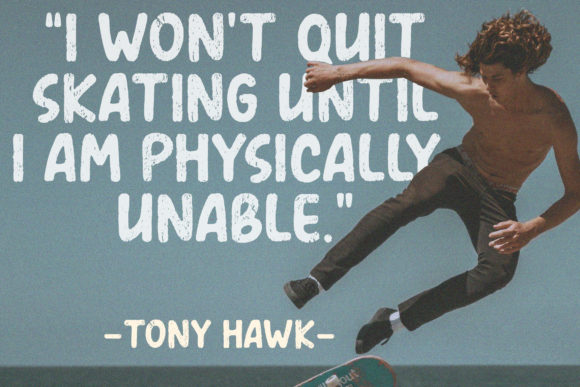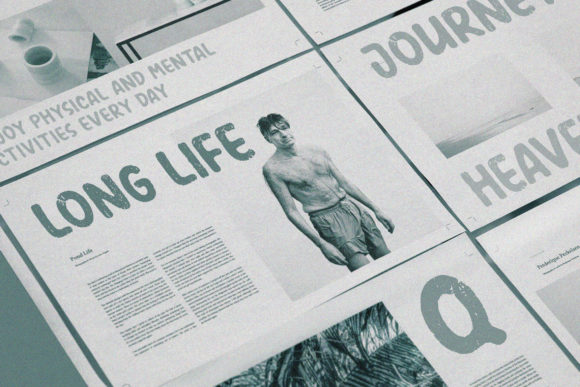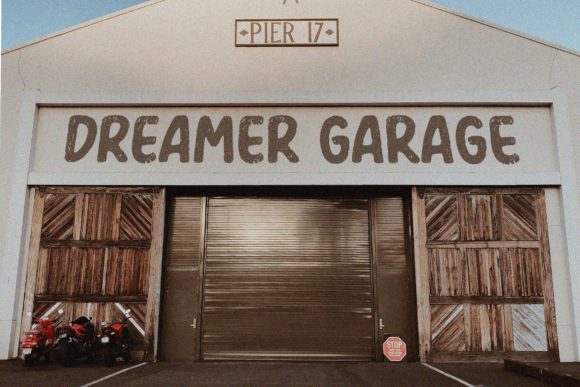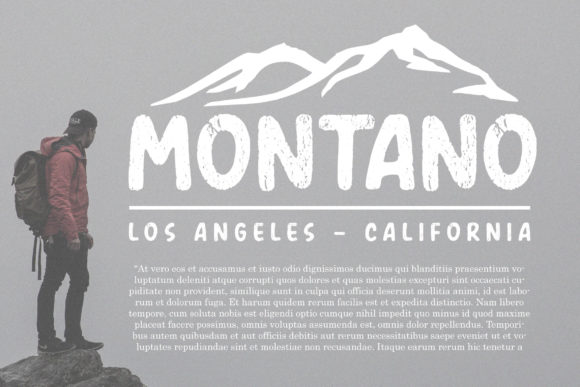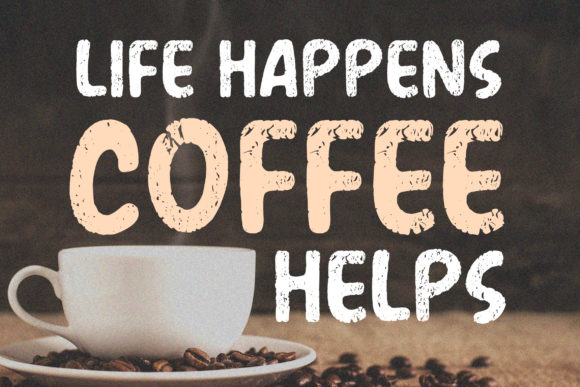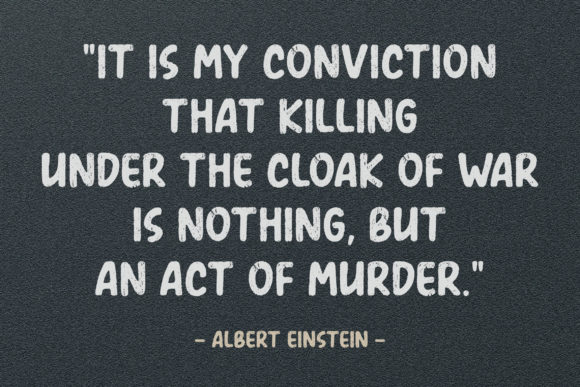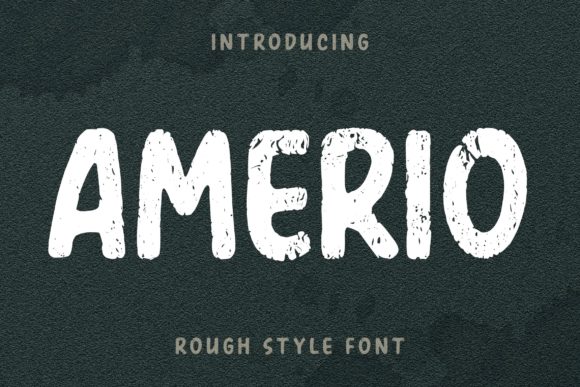
Introducing Amerio Font: A Stunning Grunge Style for Your Creative Projects
Are you a designer or crafter looking for a unique and authentic font to add a touch of elegance to your creative projects? Look no further than Amerio Font, a stunning grunge style font that’s both sophisticated and genuine. In this article, we’ll explore the features and benefits of Amerio Font, and why it’s a must-have for anyone looking to elevate their design game.
Amerio Features a Stunning Grunge Style
Amerio Font boasts a beautiful grunge style that’s perfect for designers and crafters who want to add a touch of rugged elegance to their work. The font’s distressed texture and rough edges give it a unique, handmade feel that’s both authentic and eye-catching. Whether you’re working on a branding project, a craft tutorial, or a personal blog, Amerio Font is sure to make your text stand out.
Elegant and Authentic
One of the standout features of Amerio Font is its ability to balance elegance and authenticity. The font’s grunge style is sophisticated and refined, making it perfect for high-end branding and design projects. At the same time, its rough, distressed texture gives it a genuine, down-to-earth feel that’s perfect for crafters and makers. Whether you’re looking to create a luxurious brand identity or a handmade craft tutorial, Amerio Font has got you covered.
Key Features of Amerio Font
- Grunge style: Amerio Font features a stunning grunge style that’s both elegant and authentic.
- Distressed texture: The font’s distressed texture gives it a unique, handmade feel that’s perfect for crafters and makers.
- Rough edges: The font’s rough edges add to its rugged, grunge style.
- Elegant and refined: Despite its grunge style, Amerio Font is surprisingly elegant and refined, making it perfect for high-end branding and design projects.
- Authentic and genuine: The font’s distressed texture and rough edges give it a genuine, down-to-earth feel that’s perfect for crafters and makers.
How to Use Amerio Font in Your Creative Projects
Amerio Font is a versatile font that can be used in a variety of creative projects, including:
- Branding and logo design: Amerio Font is perfect for creating unique and eye-catching brand identities.
- Craft tutorials and patterns: The font’s distressed texture and rough edges make it perfect for craft tutorials and patterns.
- Blogging and social media: Amerio Font is a great choice for bloggers and social media enthusiasts who want to add a touch of elegance to their text.
- Graphic design and printmaking: The font’s grunge style and distressed texture make it perfect for graphic design and printmaking projects.
Why Choose Amerio Font?
So why choose Amerio Font for your creative projects? Here are just a few reasons:
- Unique and eye-catching: Amerio Font is a one-of-a-kind font that’s sure to make your text stand out.
- Versatile: The font can be used in a variety of creative projects, from branding and logo design to craft tutorials and blogging.
- Elegant and authentic: Amerio Font balances elegance and authenticity, making it perfect for designers and crafters who want to create sophisticated and genuine designs.
In conclusion, Amerio Font is a stunning grunge style font that’s both elegant and authentic. With its distressed texture, rough edges, and sophisticated style, it’s perfect for designers and crafters who want to add a touch of elegance to their creative projects. Whether you’re working on a branding project, a craft tutorial, or a personal blog, Amerio Font is sure to make your text stand out. So why wait? Download Amerio Font today and take your designs to the next level!